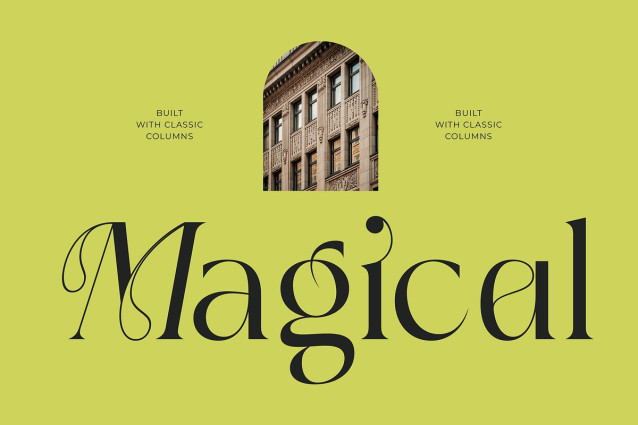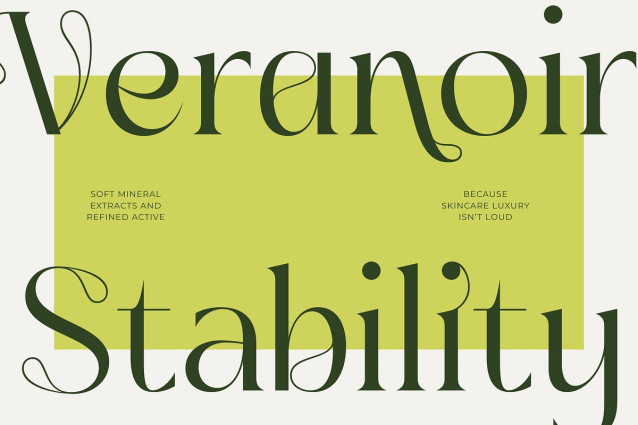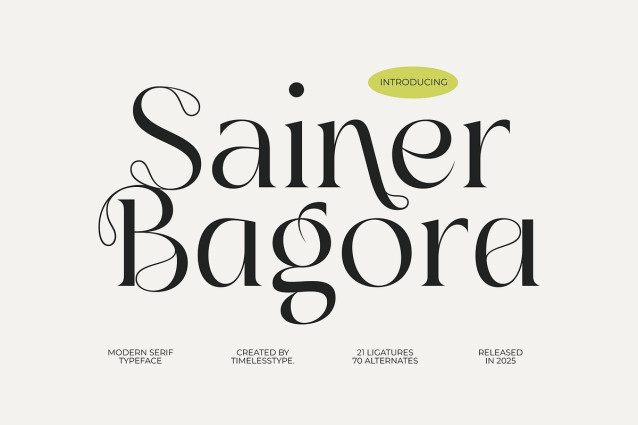
Sainer Bagora Font
Sainer Bagora Font is a refined modern serif typeface that blends sharp contemporary structure with graceful ornamental curves, delivering a high-end editorial feel with a distinctive artistic edge. Featuring 21 fluid ligatures and 70 thoughtfully crafted stylistic alternates, this typeface offers versatile expression for branding, luxury packaging, magazines, visual identities, and any design that demands sophistication with personality. Sainer Bagora elevates typography with its sculpted letterforms, smooth contrast, and effortless elegance—making it an exceptional choice for designers seeking a modern serif that stands out without trying too hard.